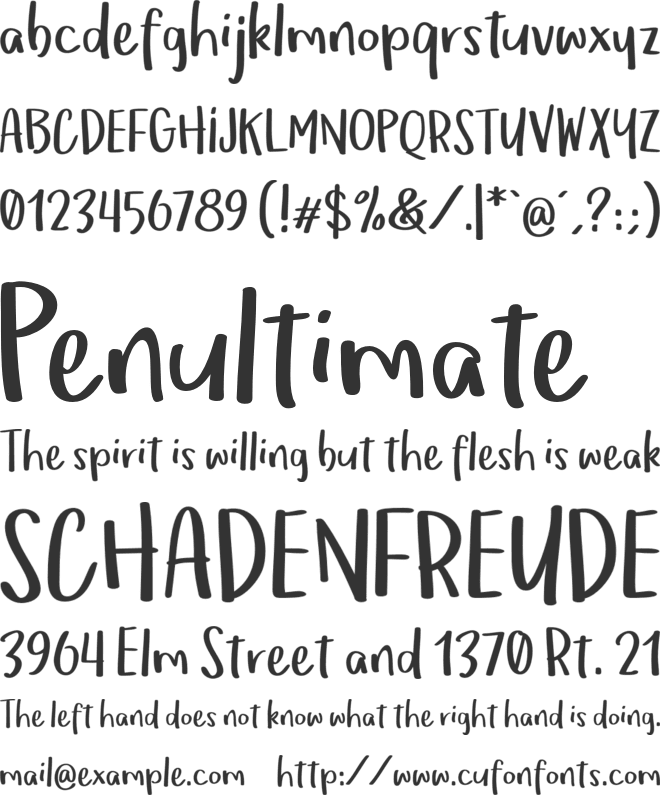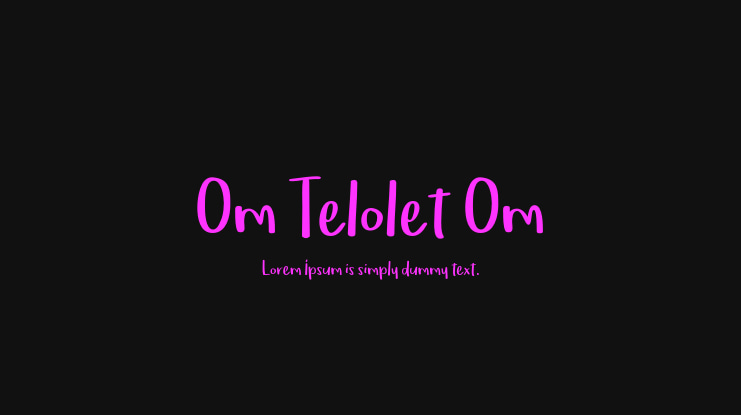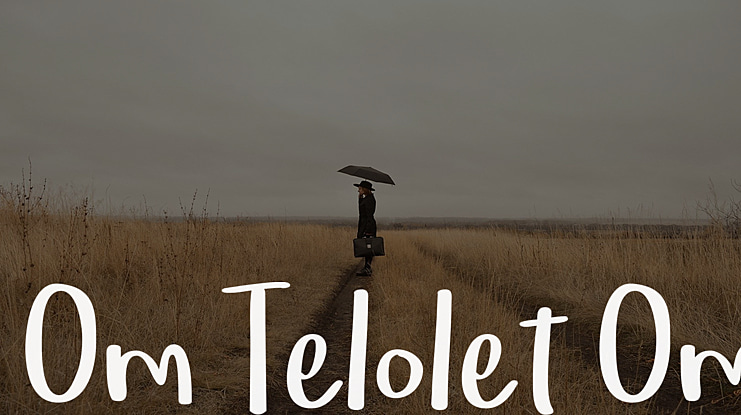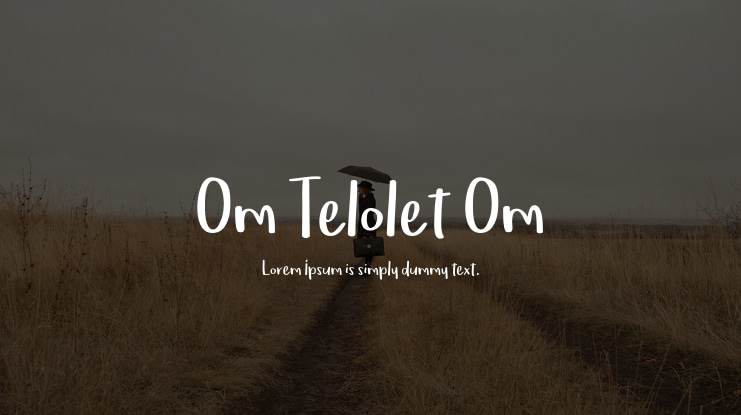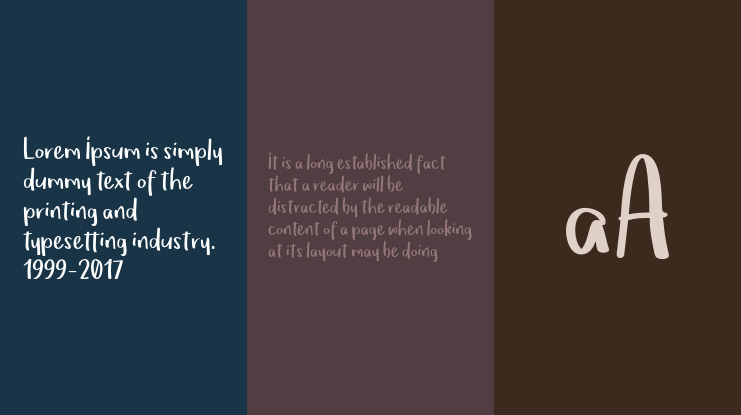
Om Telolet Om Font
This font took a handwritten style with an irregular shape. We want to give the impression of a natural and more personal. In addition to the basic character, Om Telolet Om also bring OpenType features; stylistic alternates and some basic ligatures; so you can create a design with more flexibility.